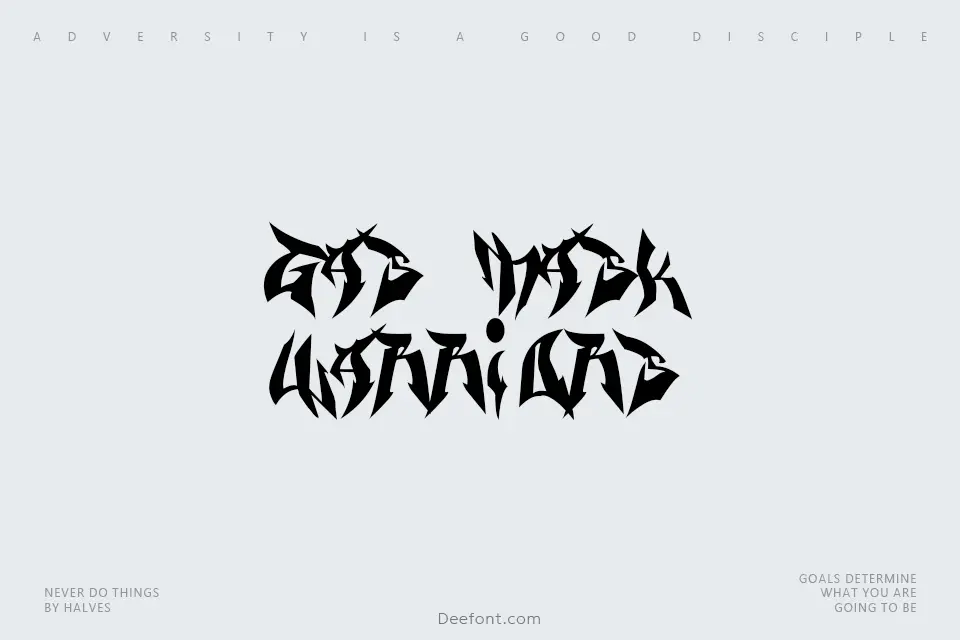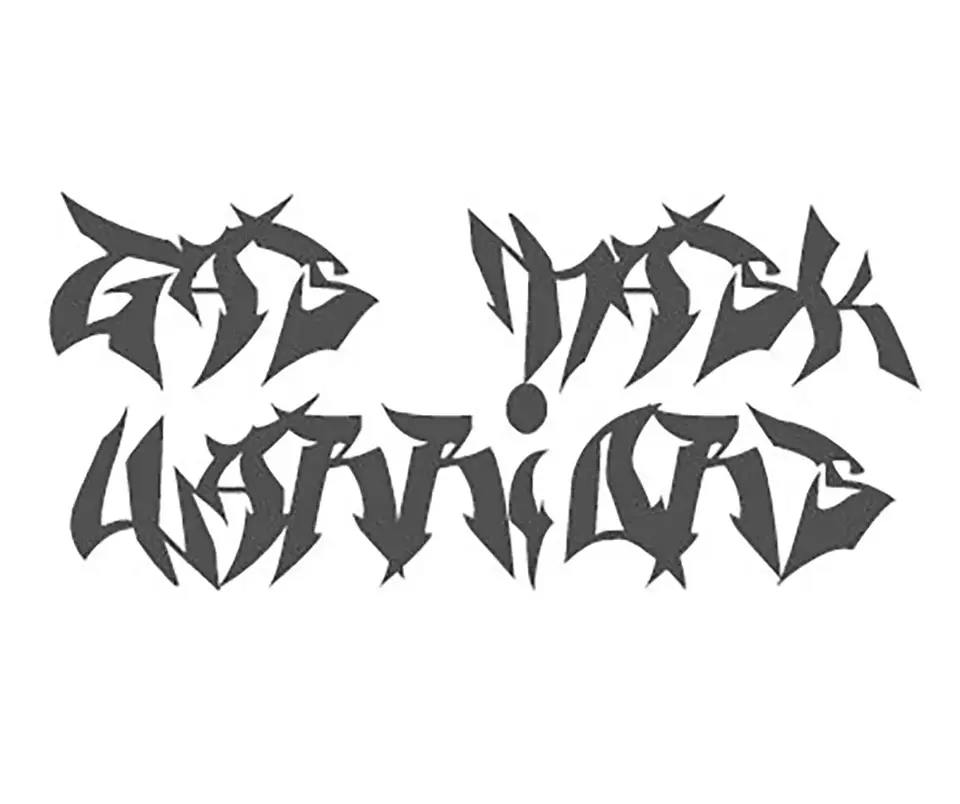
Gas Mask Warriors Font
Gas Mask Warriors is an aggressive, edgy graffiti-inspired script font characterized by sharp, angular lines and bold presence. Featuring unique tribal aesthetics with exaggerated serifs and pointed edges, it delivers a rebellious and dynamic feel ideal for music album covers, extreme sports branding, and video game titles. The font maintains consistent style across uppercase, lowercase, numbers and special characters, creating a cohesive, high-contrast design with modern appeal and strong visual impact.